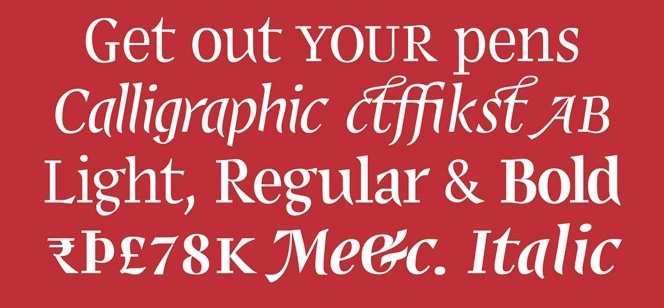
JY Shapa
JY Shapa (from the Slovenian word for paw) is a very interesting semicondensed serif typeface with quite distinctive individual appearance. It looks handwritten with its roots embedded in the fine art of the calligraphy. Indeed, as with so many beautiful things, its origins are quite ordinary. It began its life as ball-point pen scribbles of letters during a rather boring conference. They were then forgotten but luckily found again. The sketches soon turned into a beautiful typeface. In fact it is a very fresh idea that defines the pattern of this font family. JY Shapa’s designer Jure Stojan decided to give different look for the upper and the lower halves of the letters. Whereas the upper ones are more conservative, the lower are more decorative and created with more fantasy in order to add more individuality. The result is an eye-catching font family suitable for plenty of applications, mostly for display purposes.
JY Shapa comes in six weights – Light, Regular and Bold with their respective Italics. The Italics are more vigorous and off-beat and will add plenty of dynamics to any type project. There are more than 5000 kerning pairs for each font and plenty of OpenType features like small caps, nominators and denominators, superior lowercase, etc.
JY Shapa font is designed by the Slovenian designer Jure Stojan and is released by JY&A type foundry. It is a perfect partnership where a highly talented designer works for a big type foundry with a very solid background. The New Zealand based JY&A (Jack Jan & Associates) type foundry was founded in 1987 and has been offering commercial type designs since 1994. It is the biggest foundry in Australasia with its founder Jack Jan one of the most prominent names in this field.